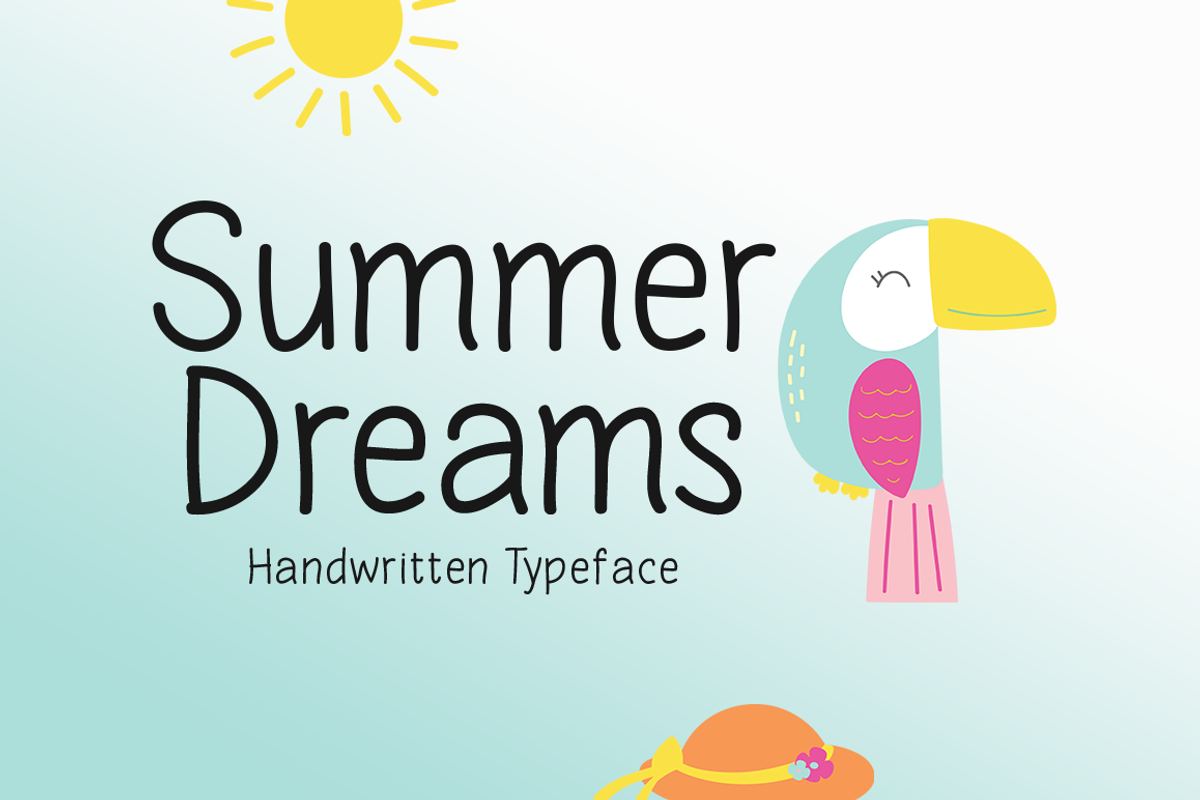
The Summer Dreams Typeface Free Download is a playful and vibrant font designed to capture the carefree, warm vibe of summer. With its bold, flowing letterforms and whimsical style, this font is perfect for creating beach-themed logos, event invitations, posters, and social media graphics. Whether you’re designing for a summer festival, vacation brand, or seasonal promotions, Summer Dreams adds a fun, sunny touch to your work.
Summer Dreams Typeface Free Download is ideal for designers looking to add a vibrant and playful style to their work. Perfect for projects that evoke the spirit of summer, this font will make your designs stand out with its joyful, fun vibe. Download it today and infuse your creative projects with the warmth and energy of Summer Dreams!